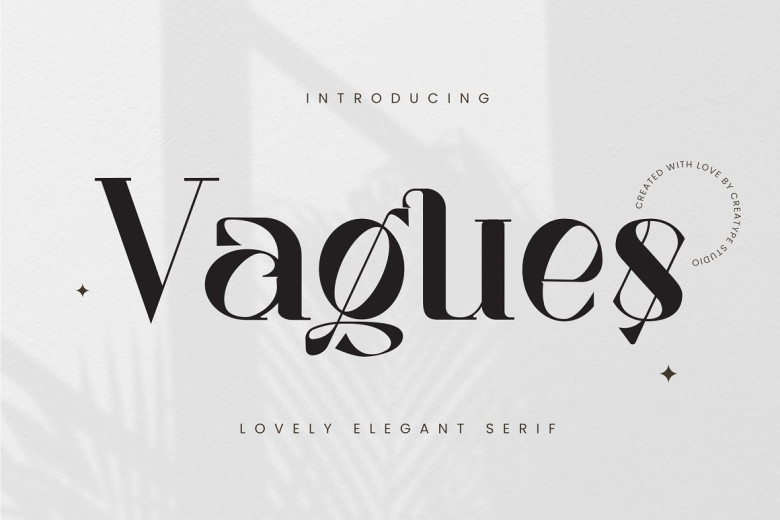
Vagues Font
Vagues is a beautiful elegant Serif font adds a sense of grace and elegance to any design project. Vagues is ideal for use in branding, logos, weddings, social media posts and advertisements, packaging design, product labelling, photography watermarks invitations stationery or any project requiring handwritten style.
Vagues Serif Font